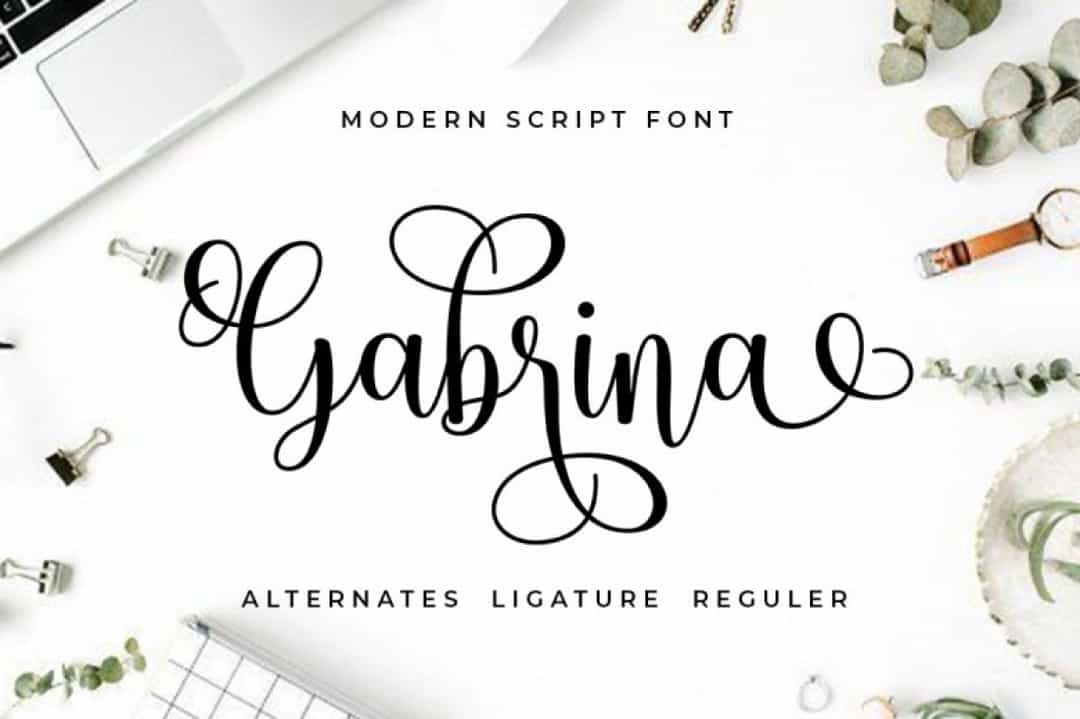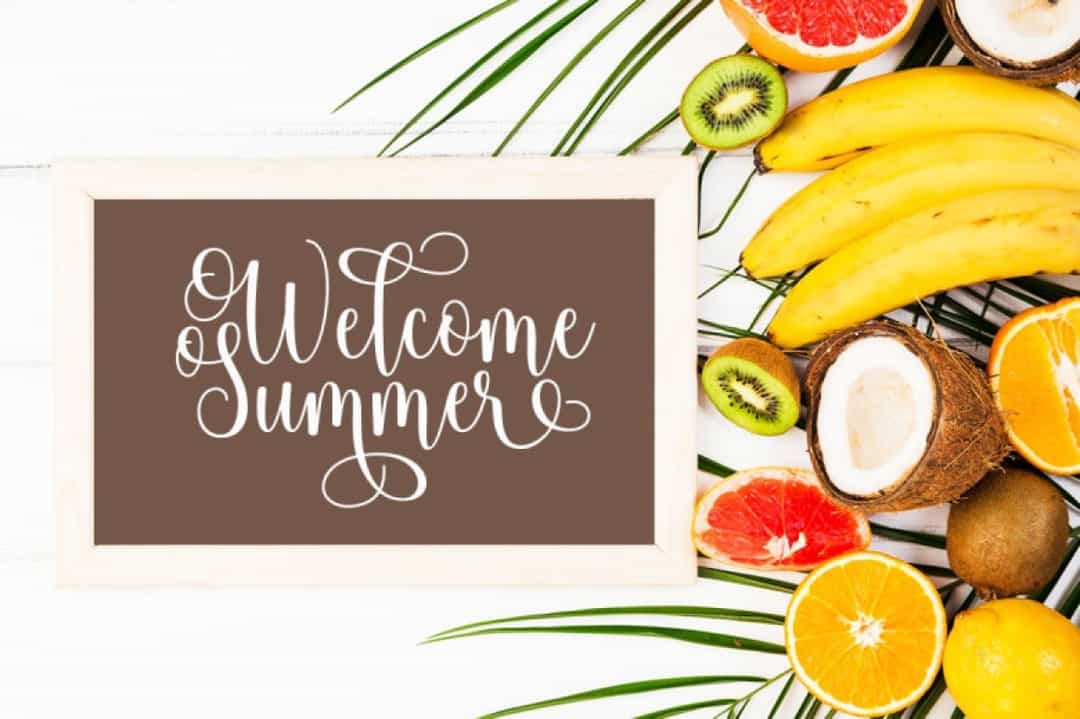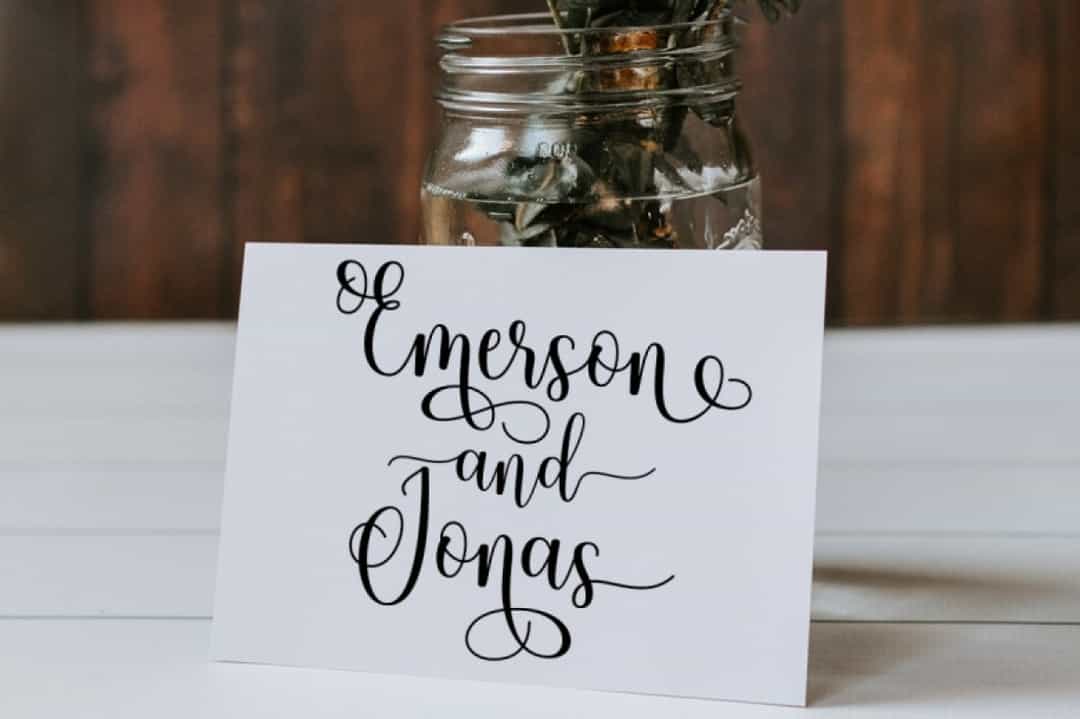
Gabrina is a beautiful font that contains script font and calligraphy font with different characters and Open Type features. This font belongs to the script type and was designed by the design studio known as Aqeela Studio. Gabrina is inspired by typography and adds its flair to any project it takes on.